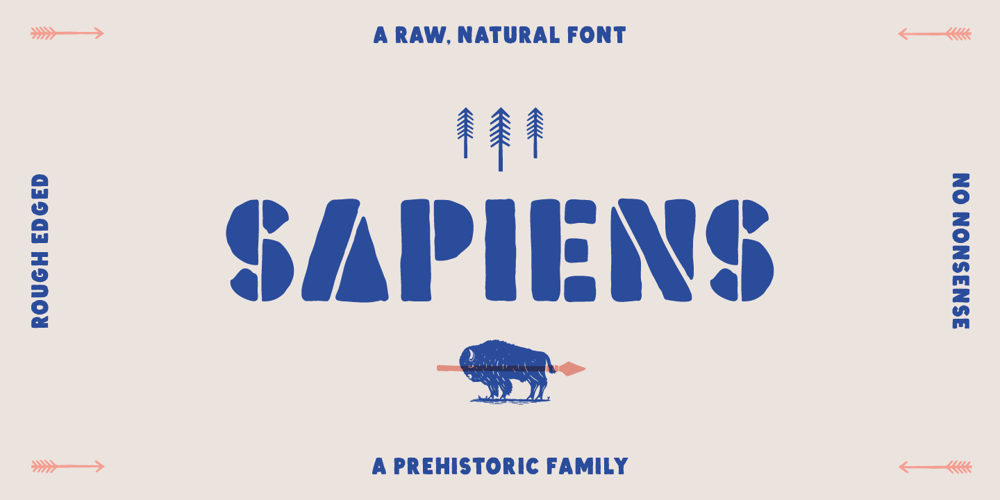
Sapiens
Sapiens font
Sapiens Font Family was designed by Ed Hemphill and published by Hemphill Type. Sapiens contains 5 styles and family package options. Sapiens is a prehistoric font family characterised by simplicity & crudeness, as if carved out and assembled by our sapiens ancestors. The family is built with a rough edged style that evolves through various styles and becomes more legible while retaining the raw roots of its origins.